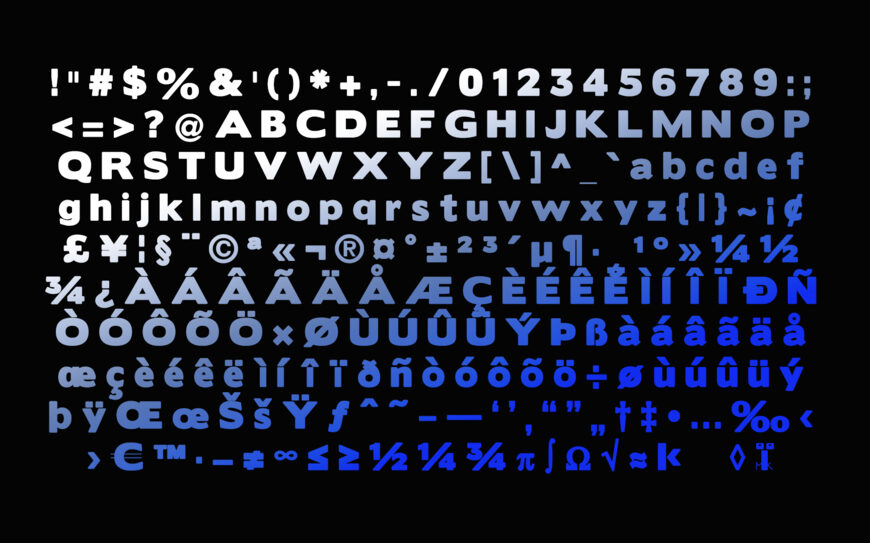
Boris Black Bloxx Font
Boris Black Bloxx is a heavy, bold sans-serif font designed by Manfred Klein. Characterized by its thick, rounded, and impactful structure, this display typeface is ideal for making strong visual statements, headlines, and logos.
The font includes regular and “dirty” variants, giving creators options for clean modern looks or distressed textures. It is widely popular for creative projects requiring a high-impact, solid presence.